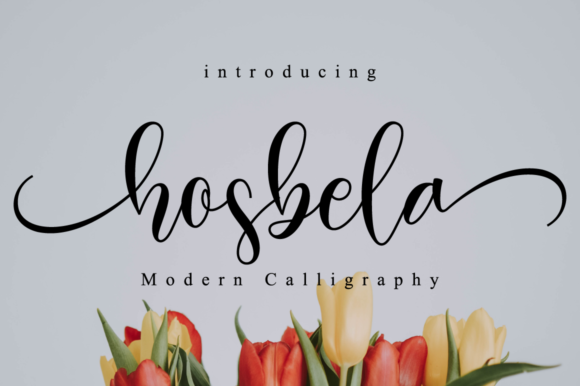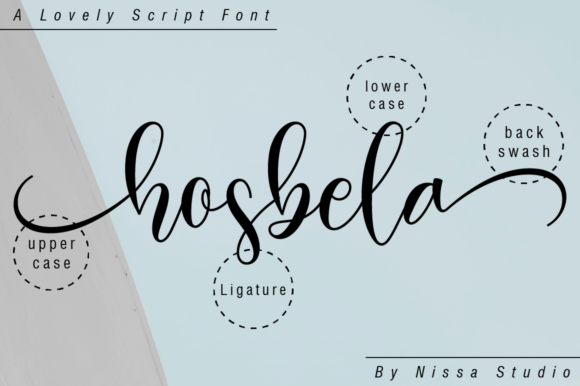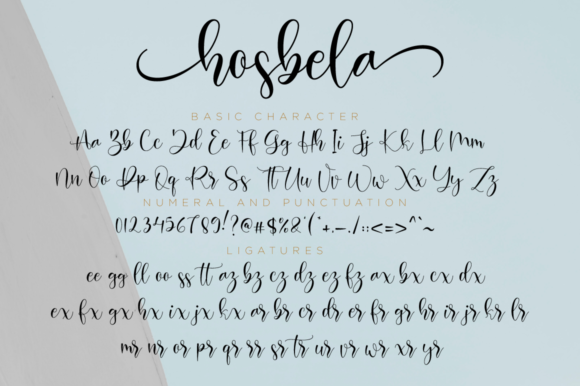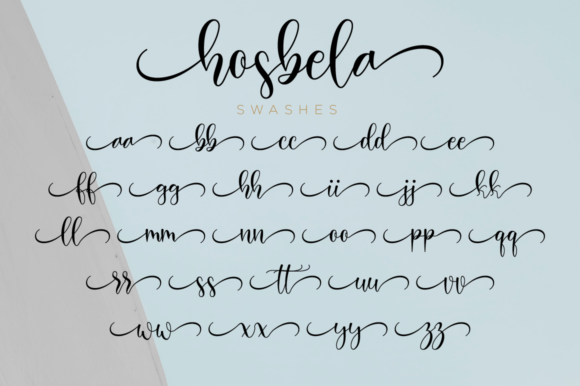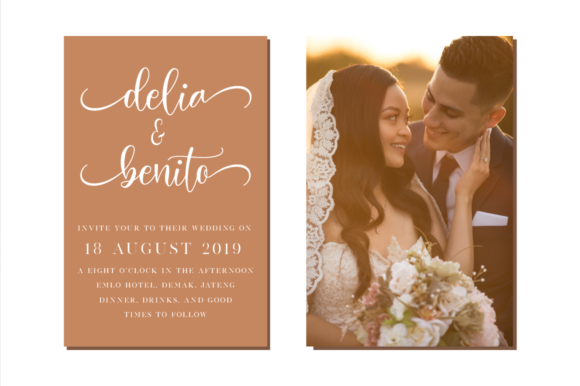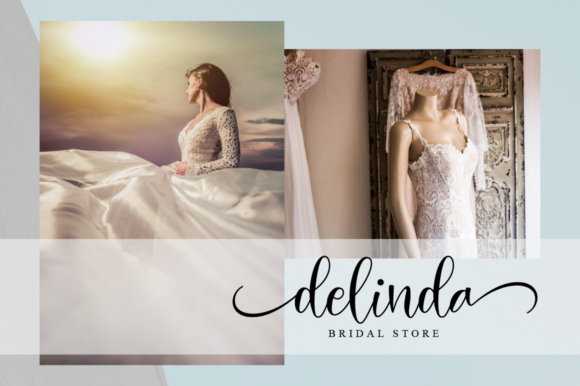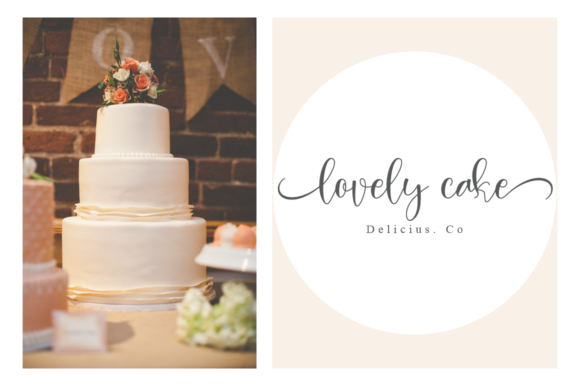
Hosbela Script Font
About Hosbela Script Font
The Hosbela is a beautiful script font. It has a classy, elegant, and modern look that works perfectly in any design projects in need of a handwritten touch.